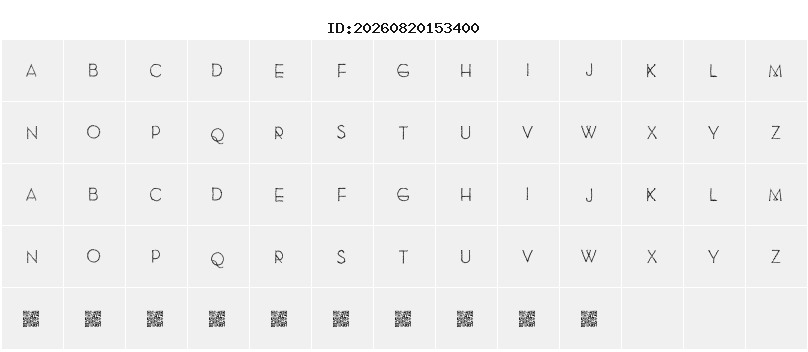
SewModern Preview
• Font Name: SewModern
• Full Font Name: SewModern
• Version: Version 1.00 March 3, 2016, initial release
• Designer: Max Infeld Xerographer Fonts
• Manufacturer: Xerographer Fonts
• Description: Made by Xerographer Fonts in Chico,California
About SewModern.ttf
SewModern.ttf is a modern, elegant sans-serif font designed for ultimate readability and visual harmony. Perfect for branding, headlines, web design, and print materials.